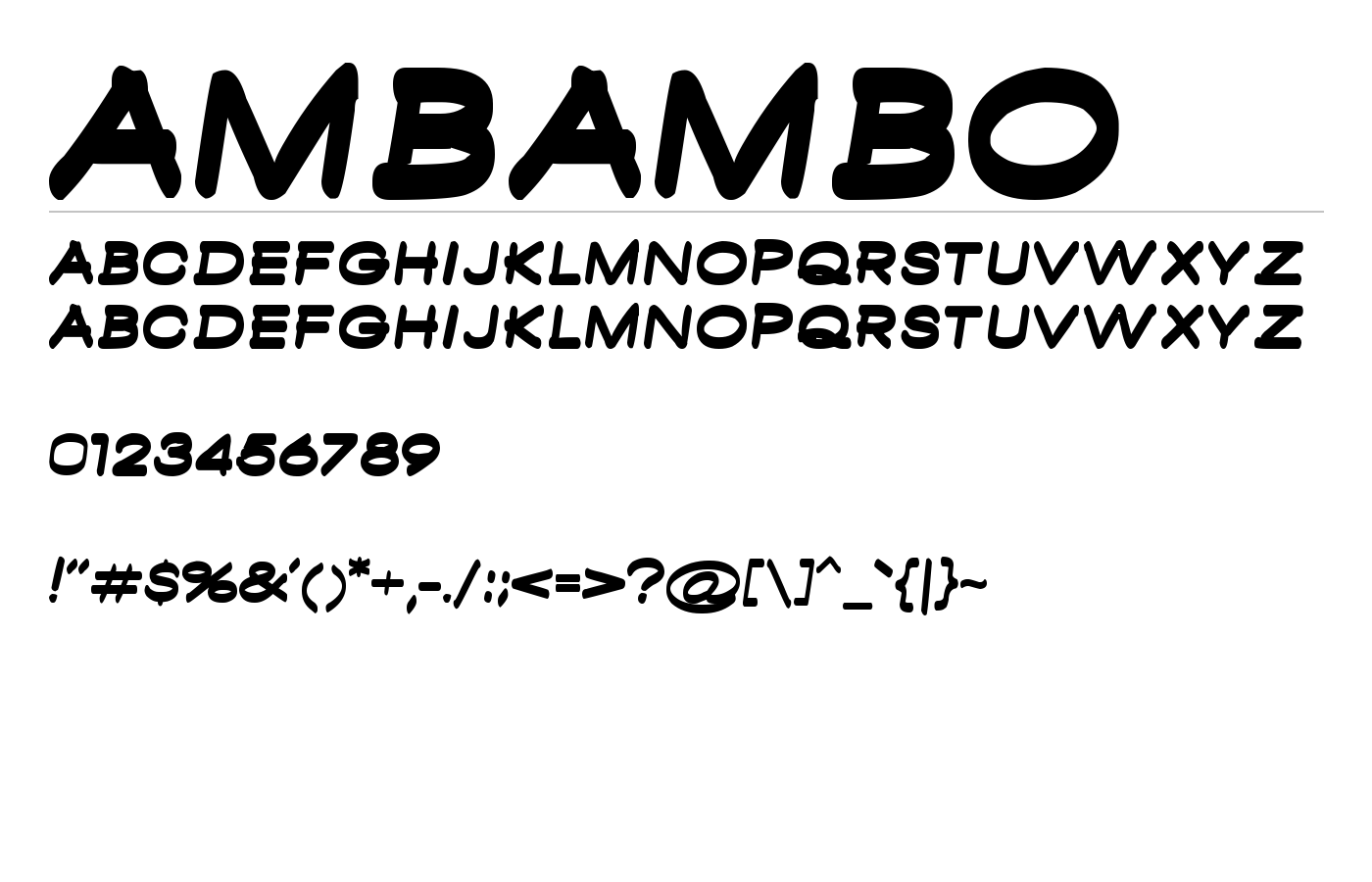
Ambambo is a bold, playful sans serif font with a casual, hand-drawn feel that radiates energy and friendliness. Its slightly irregular shapes and rounded edges give it a unique, approachable personality perfect for fun branding, headlines, and creative projects that want to stand out with a lively, informal tone. This font works well in logos, posters, and packaging where a touch of whimsy and warmth is desired.
Ambambo Font
About Ambambo Font
| Font family | Ambambo Font |
| Designer | Ajith Rajan |